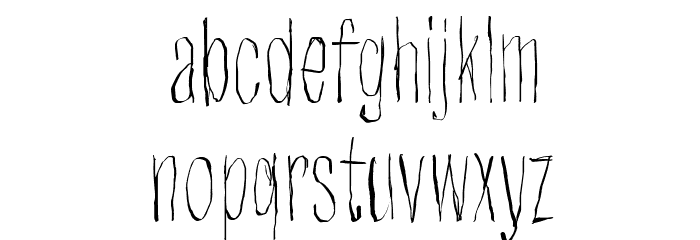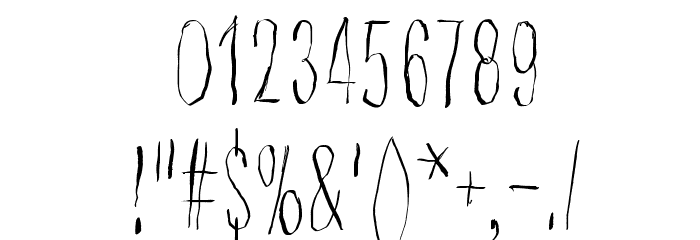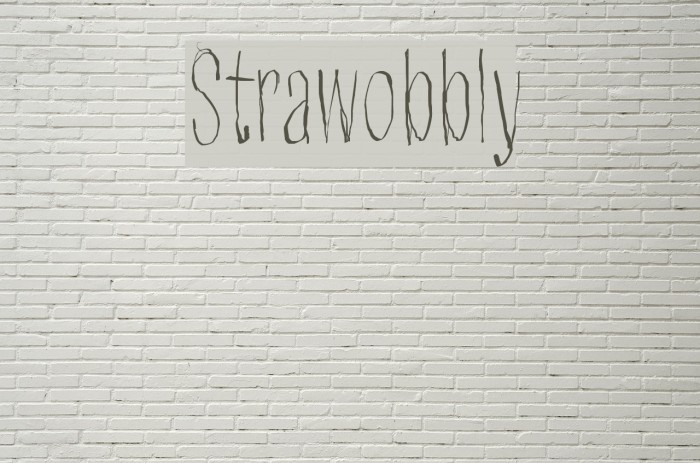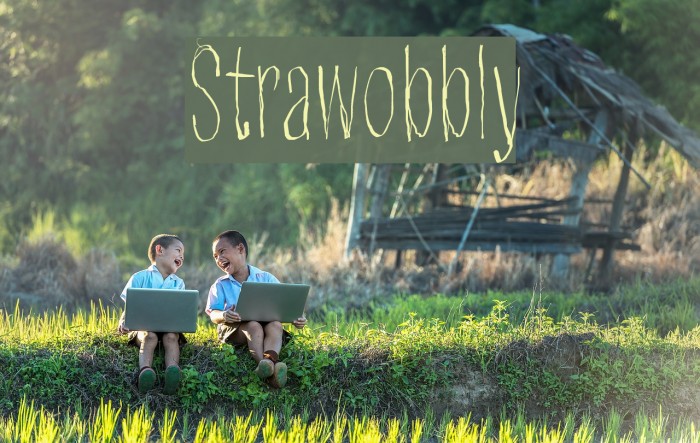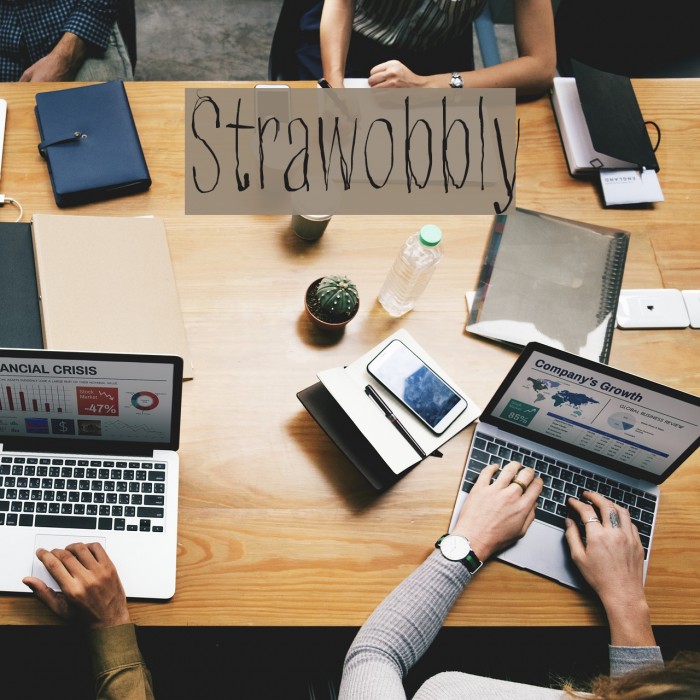
Strawobbly Font
This font features a unique, hand-drawn style with irregular, wobbly lines that give it a whimsical and playful appearance. The characters are tall and narrow, with varying stroke thickness that adds to the organic feel. The uppercase and lowercase letters maintain a consistent height, while the numbers and special characters follow the same quirky design. This font's uneven and sketch-like quality makes it stand out, offering a creative and artistic vibe.
A whimsical, hand-drawn font with wobbly, irregular lines.
- Proposed Projects: Ideal for creative projects such as children's book covers, playful posters, artistic branding, and unique invitations.
- Use Case: Logos, Headlines, Artistic projects